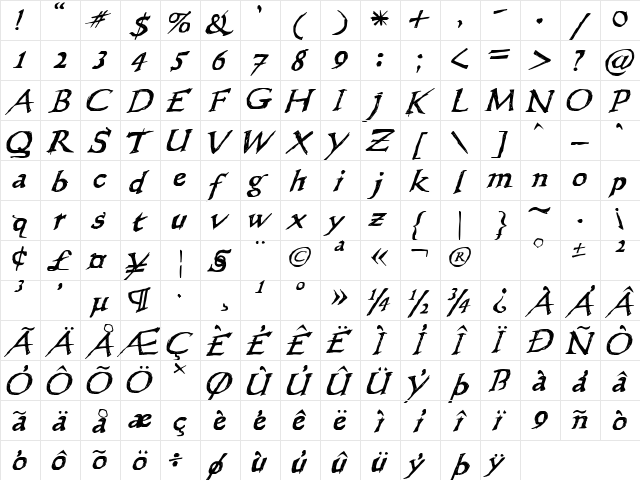
WL Scribble Flinger Regular
| Foundry | Samuel Goldstein |
| Designer | Samuel Goldstein |
Design Context for WL Scribble Flinger Typeface
WL Scribble Flinger is a composed and adaptable typeface that performs quietly and consistently across a wide range of design contexts.